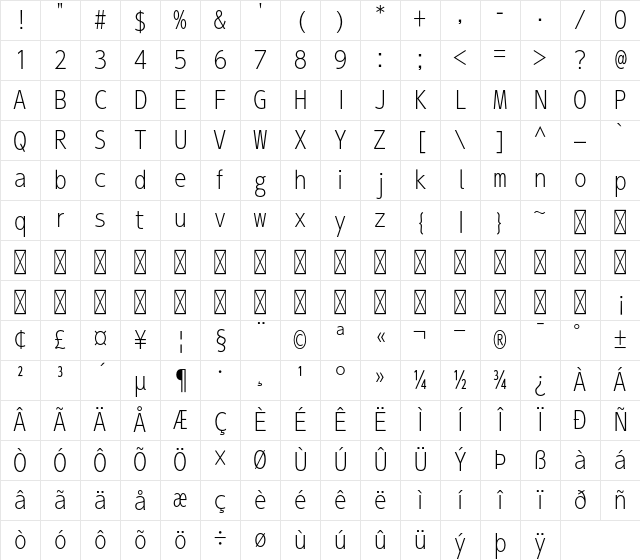
A-OTF UD Shin Go Con60 Pr6 EL
Style: EL
Design Context for A-OTF UD Shin Go Con60 Pr6
A-OTF UD Shin Go Con60 Pr6 is a composed and adaptable typeface that performs quietly and consistently across a wide range of design contexts.